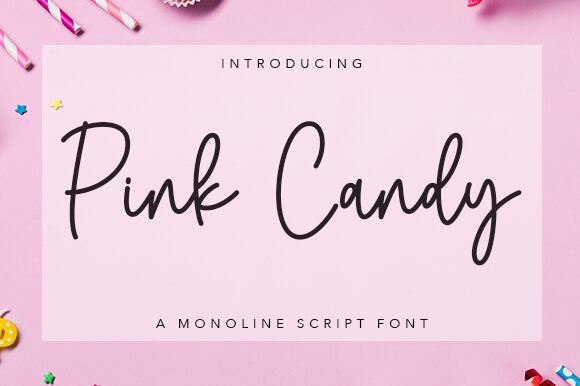
Pink Candy, conceived by Wahyu Studio, invites a breath of fresh air with its handwritten, signature style that exudes a sense of personal touch and flair. Its light weight gives it a delicate and subtle charm, making it an excellent choice for designs seeking to convey elegance and intimacy. The font's fluid transitions and organic curves mimic the grace of ink flowing from a pen, offering an aesthetic appeal that is both soothing and engaging.
The versatility of Pink Candy lies in its ability to adapt; whether it's gracing wedding invitations with its romantic vibe or adding personality to branding materials, this font is poised to infuse your creative projects with its distinctive warmth. Embrace the stylish sensibility of Pink Candy for an effortlessly chic addition to your design toolkit.